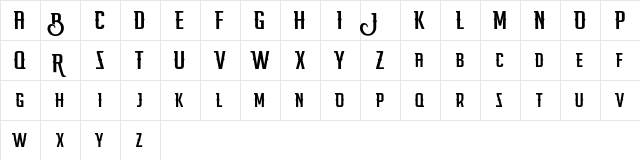
moge Regular
Design Context for moge Typeface
moge is a composed and adaptable typeface that performs quietly and consistently across a wide range of design contexts.